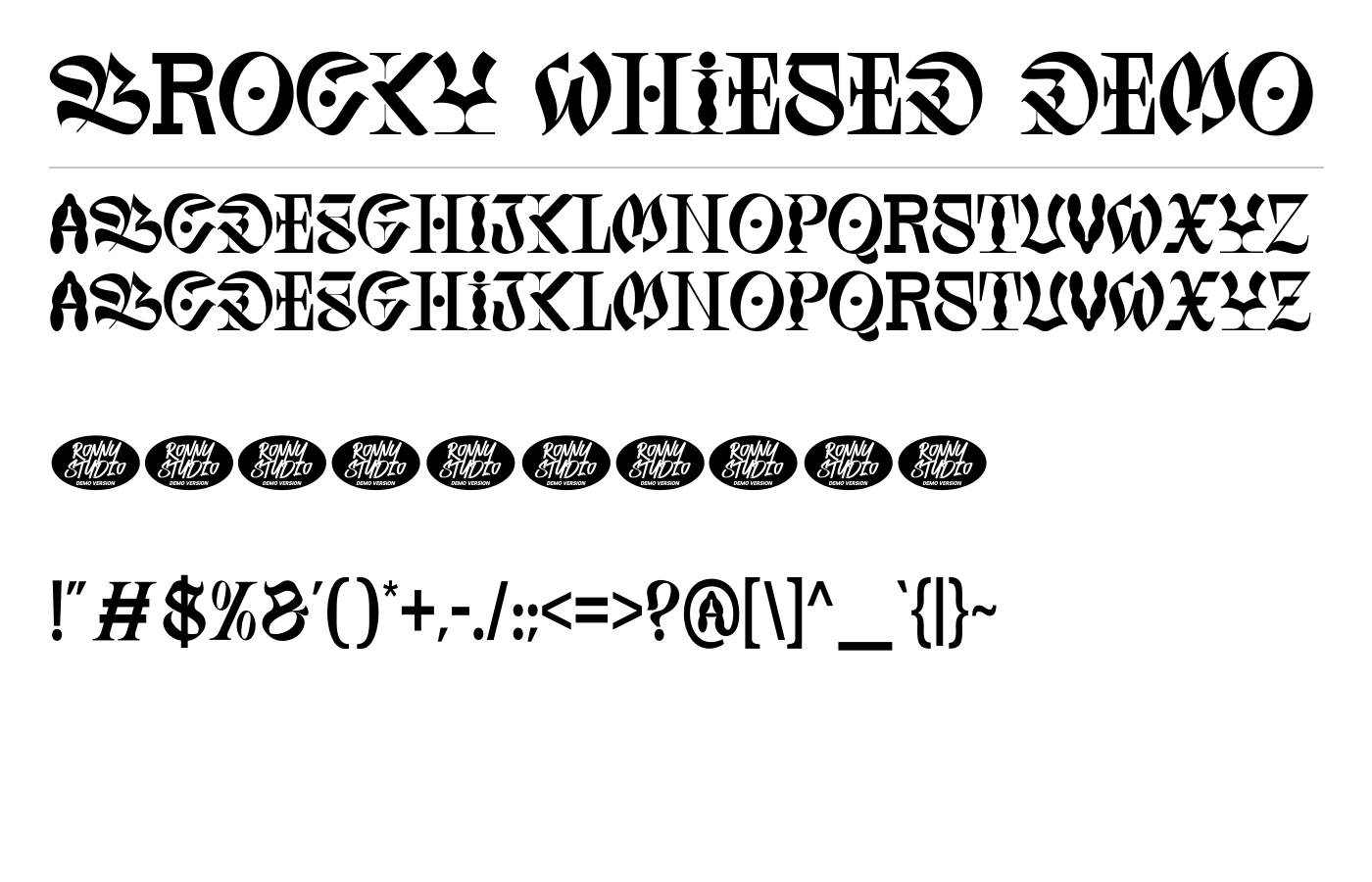
Brocky Whiesed DEMO is a bold serif font with a highly decorative and gothic-inspired style, featuring thick and thin stroke contrasts and unique, ornamental letterforms. Its intricate details and dramatic flair make it ideal for eye-catching headlines, logos, and branding projects that seek a vintage or mysterious atmosphere. This font works best where strong visual impact and artistic expression are desired, rather than lengthy body text.
Brocky Whiesed DEMO Font
About Brocky Whiesed DEMO Font
| Font family | Brocky Whiesed DEMO Font |
| Designer | Rony Rizki Jaya |